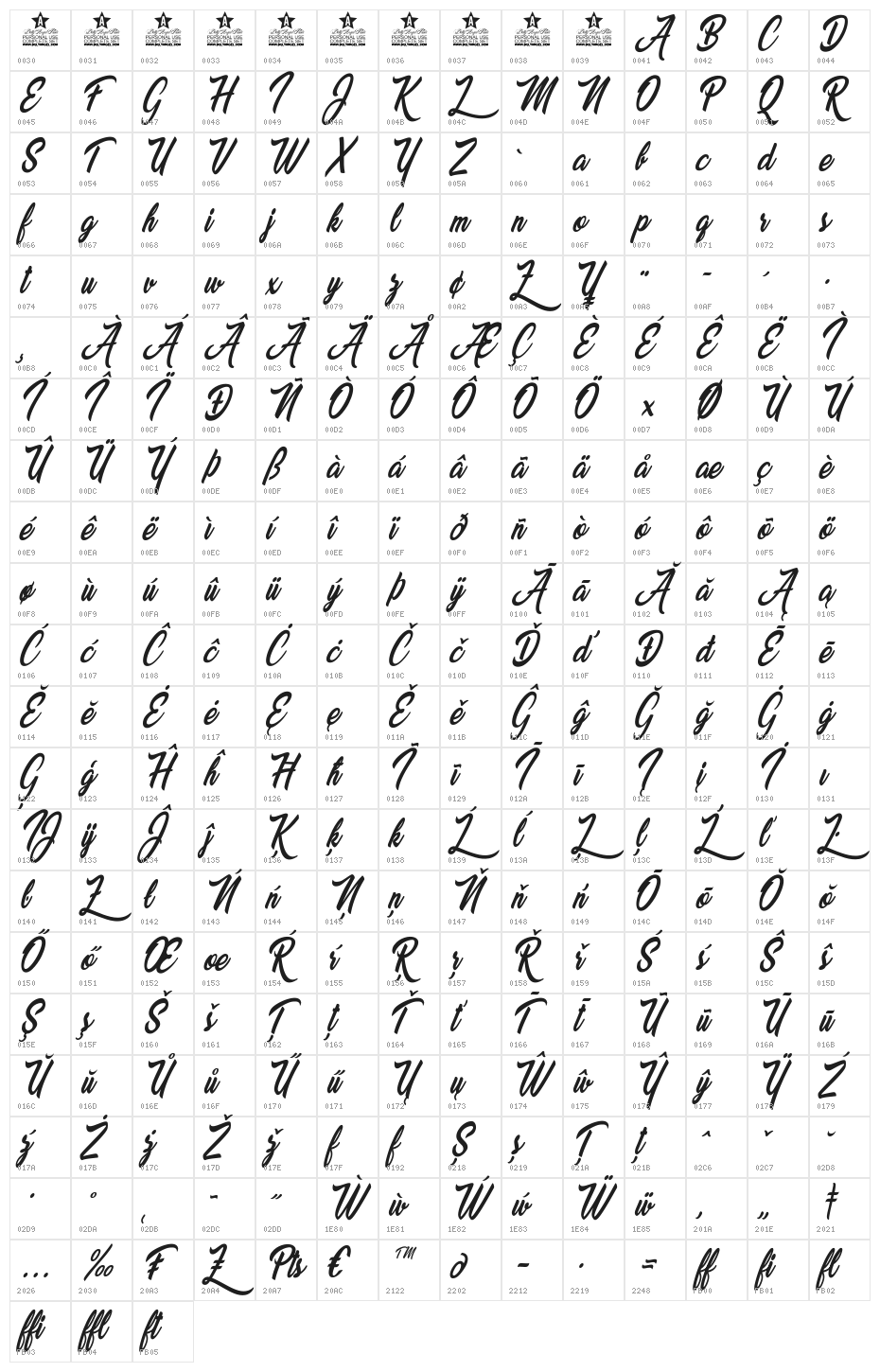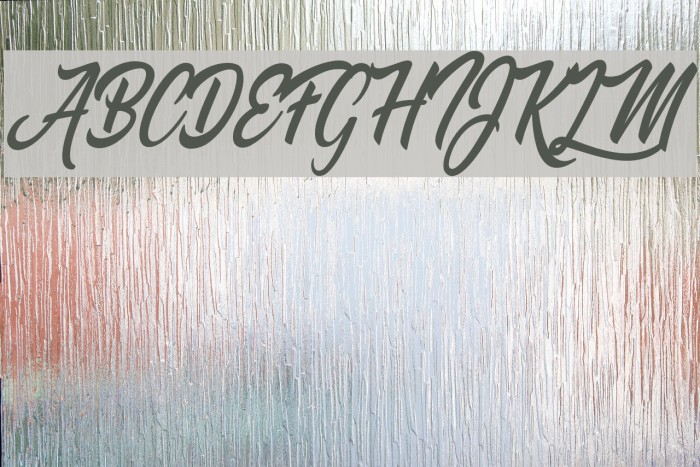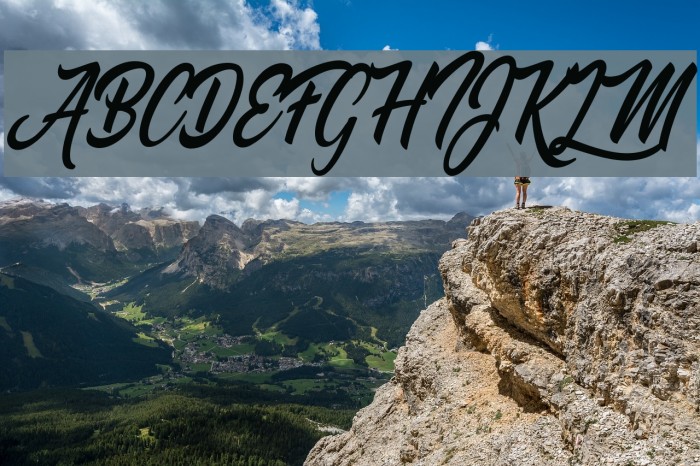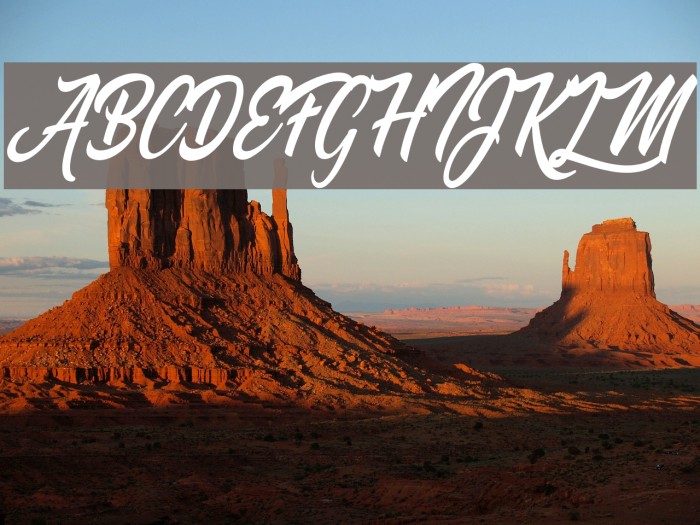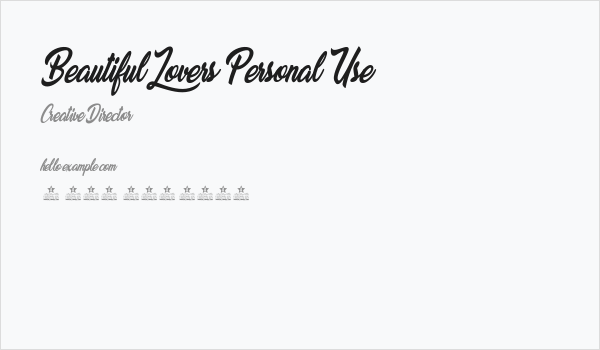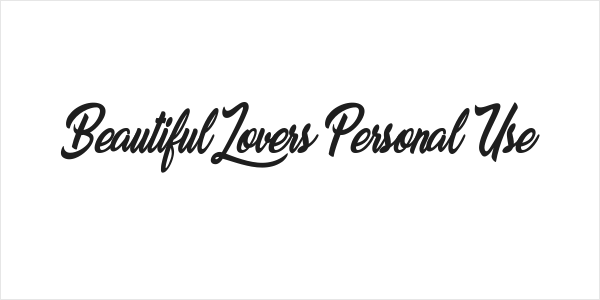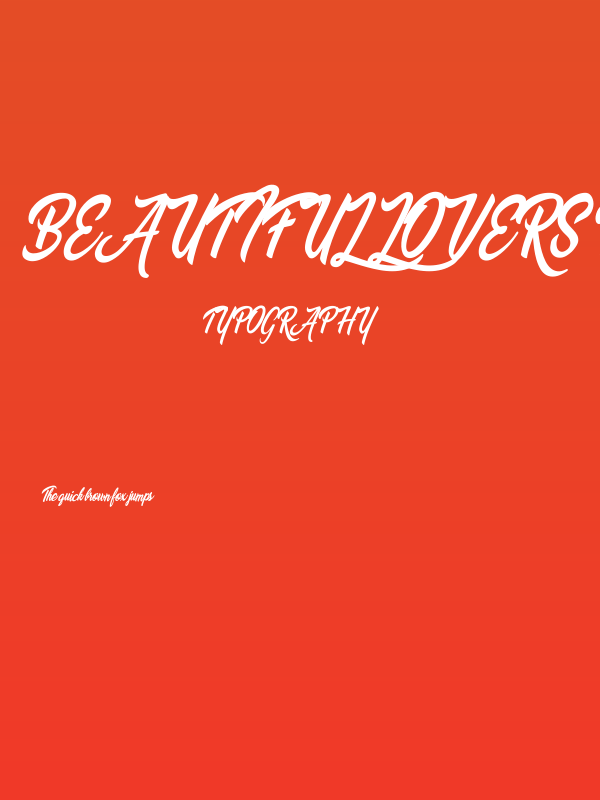
Beautiful Lovers Personal Use Font
Beautiful Lovers Personal Use Description
This font features a flowing, cursive style with elegant, sweeping strokes that give it a romantic and sophisticated feel. The uppercase letters are bold and prominent, with a slight slant that adds to the dynamic appearance. The lowercase letters maintain a consistent style, with smooth connections between each character, enhancing the script's fluidity. The numbers and special characters are designed to match the overall aesthetic, ensuring a cohesive look across all text. This font is perfect for projects that require a touch of elegance and personal flair.
| Overall Style | Romantic, Elegant |
| Proposed Projects | Ideal for wedding invitations, greeting cards, personal branding, and romantic-themed designs. |